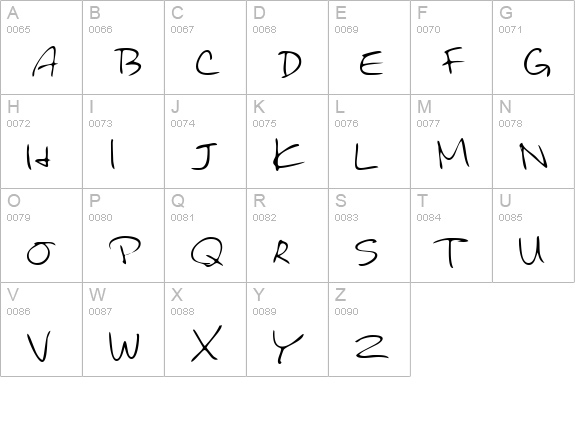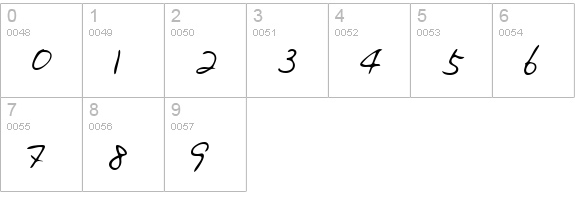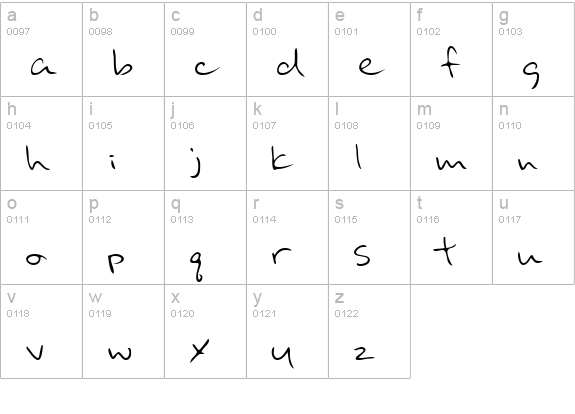
BinghamsHand Regular Font Details
BinghamsHand Regular is the standard, neutral variant in the BinghamsHand typeface family \xE2\x80\x94 well suited to general body text, paragraphs, and standard typographic work.
BinghamsHand Regular font is a charming and versatile typeface that exudes a sense of warmth and friendliness. With its playful yet elegant design, this font is perfect for adding a personal touch to your projects, whether it be invitations, posters, or branding materials. What makes BinghamsHand Regular font even more appealing is that it is available for free download at FontsMarket.com. This means you can easily access this delightful font and use it in your designs without any cost. Embrace the creative possibilities that BinghamsHand Regular font offers and bring a touch of handcrafted beauty to your projects today.